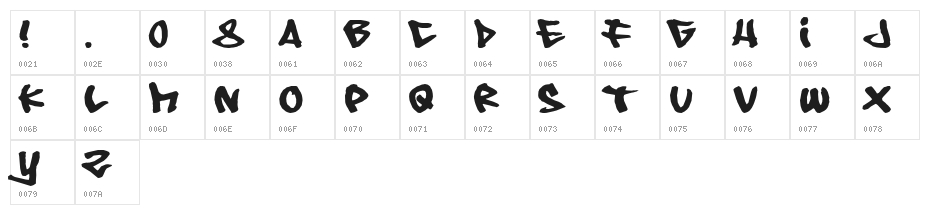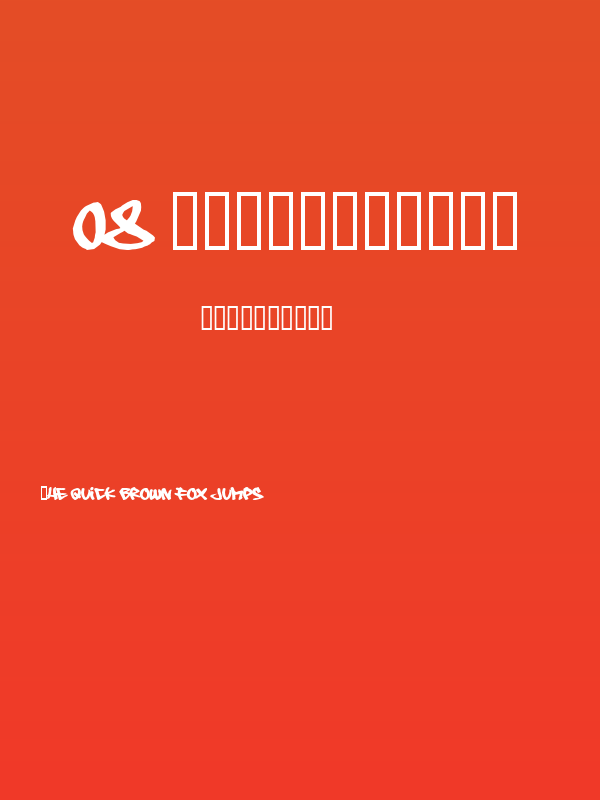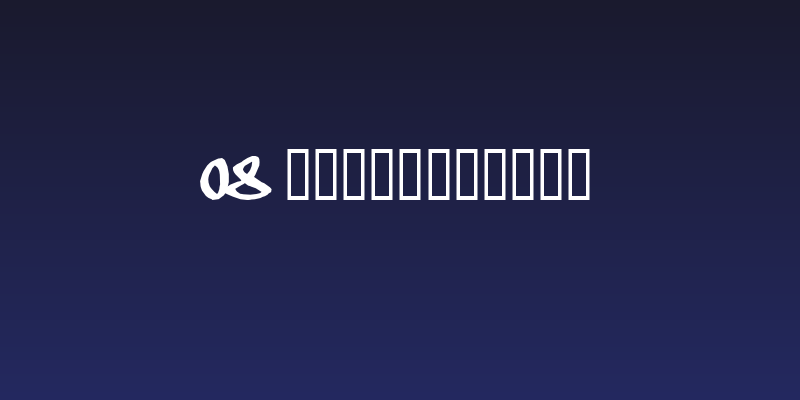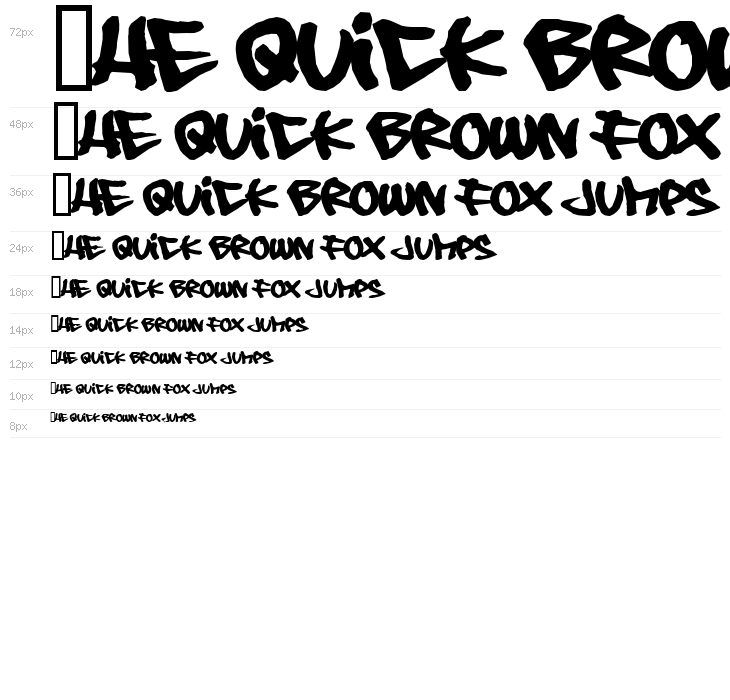
08 Underground Font
| 使用场景 | Logos, Headlines, Posters |
| 推荐项目 | Perfect for street art designs, music album covers, urban-themed posters, and edgy branding projects. |